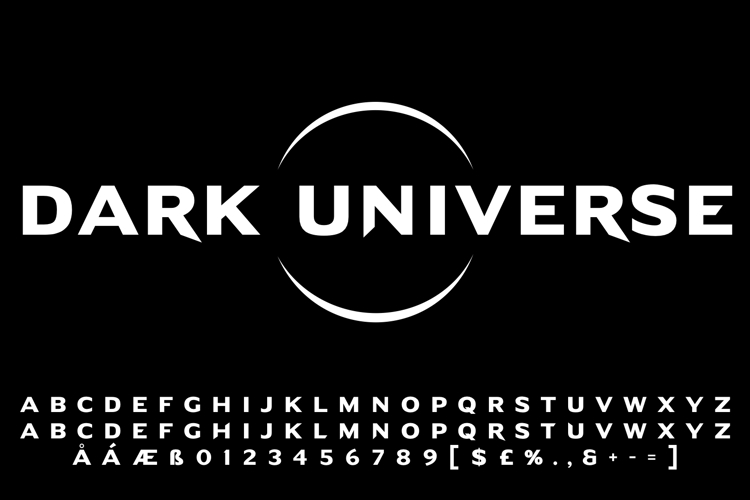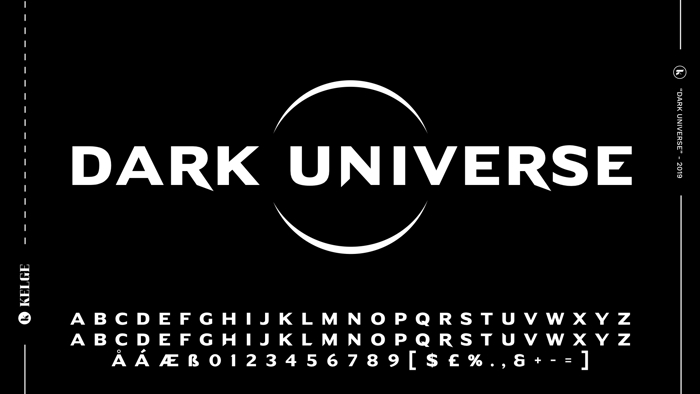
Dark Universe Font
About Dark Universe Font
Horror icons, assembled under one banner. What could have been... From Vampires, Mummies, Jekyll & Hyde, Frankenstein, and more.